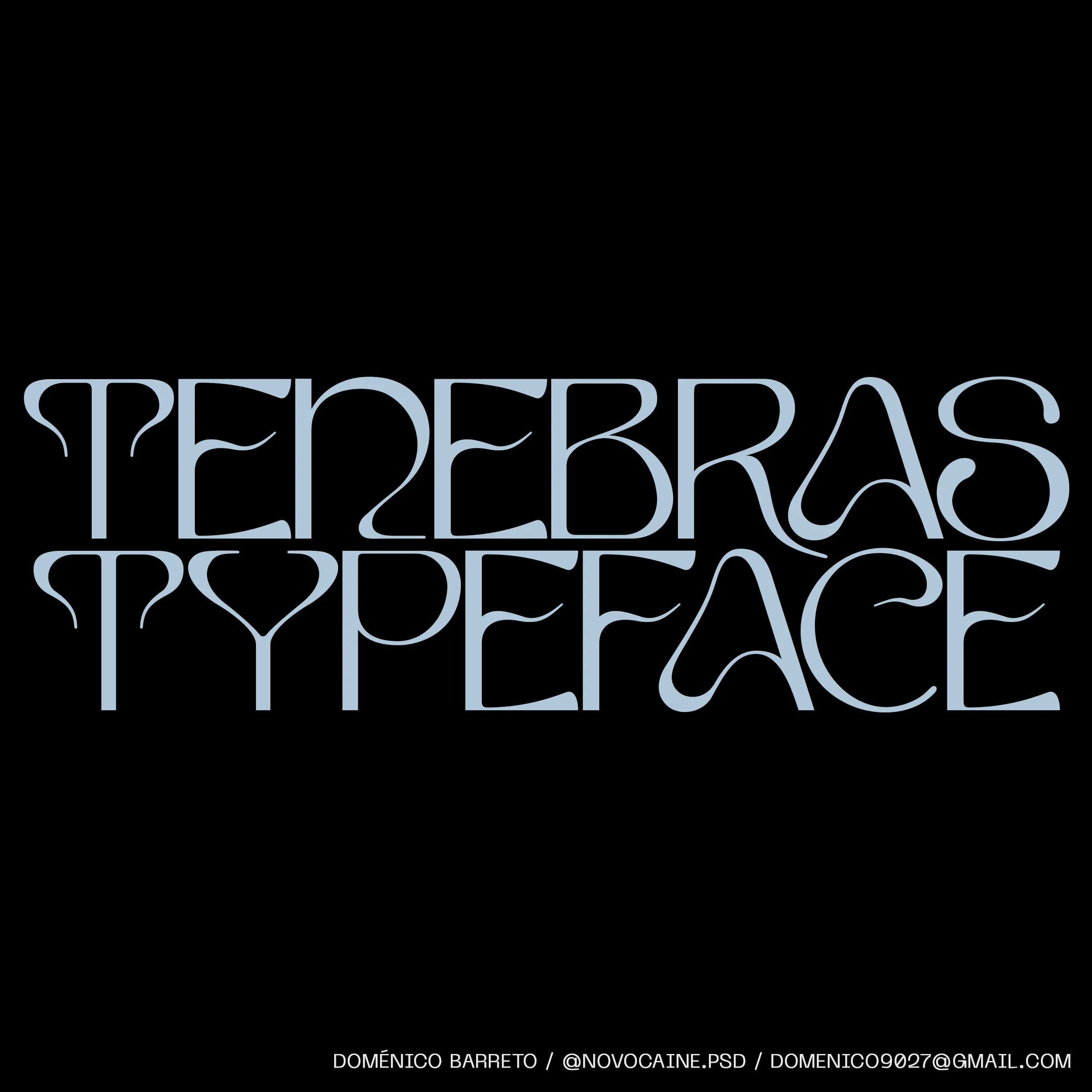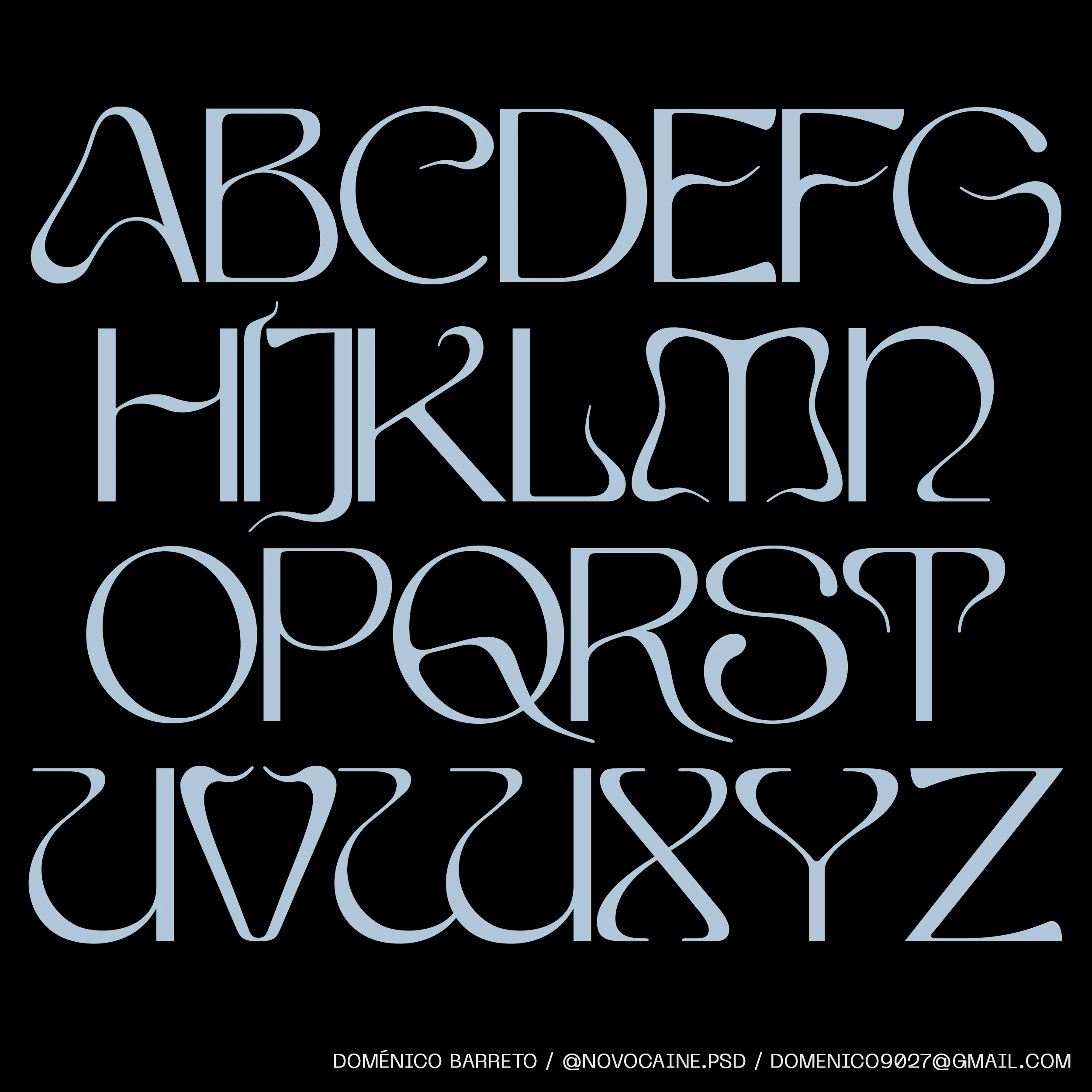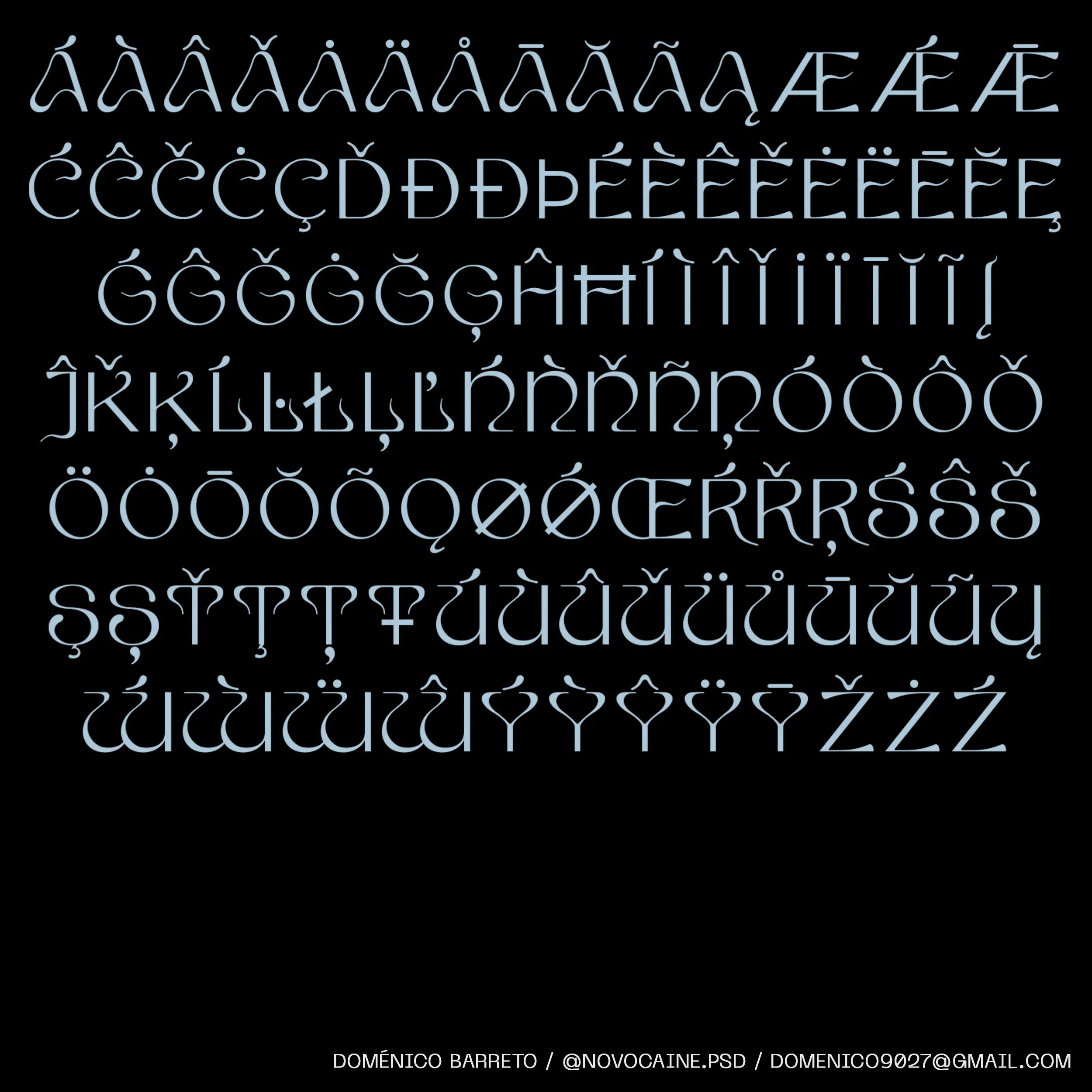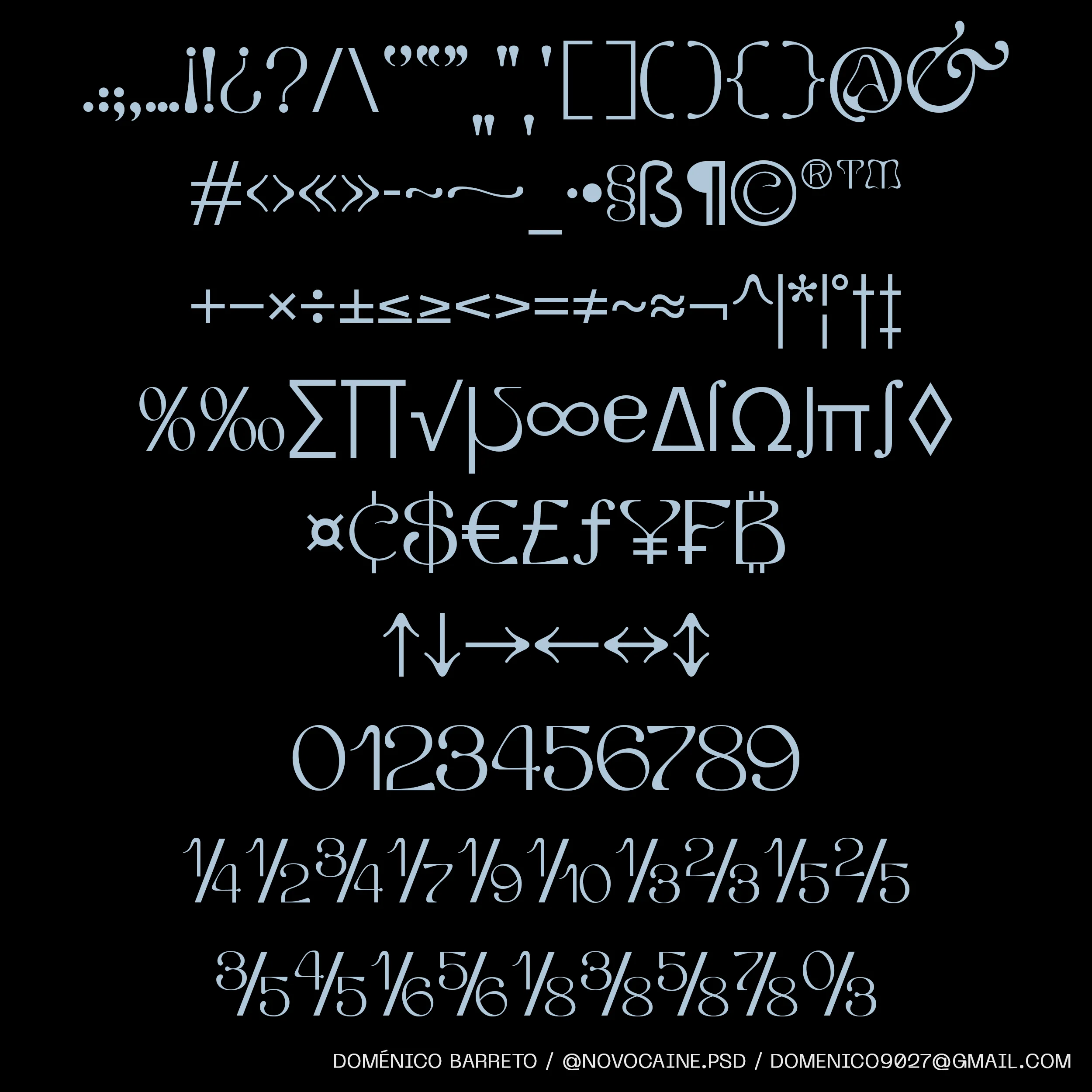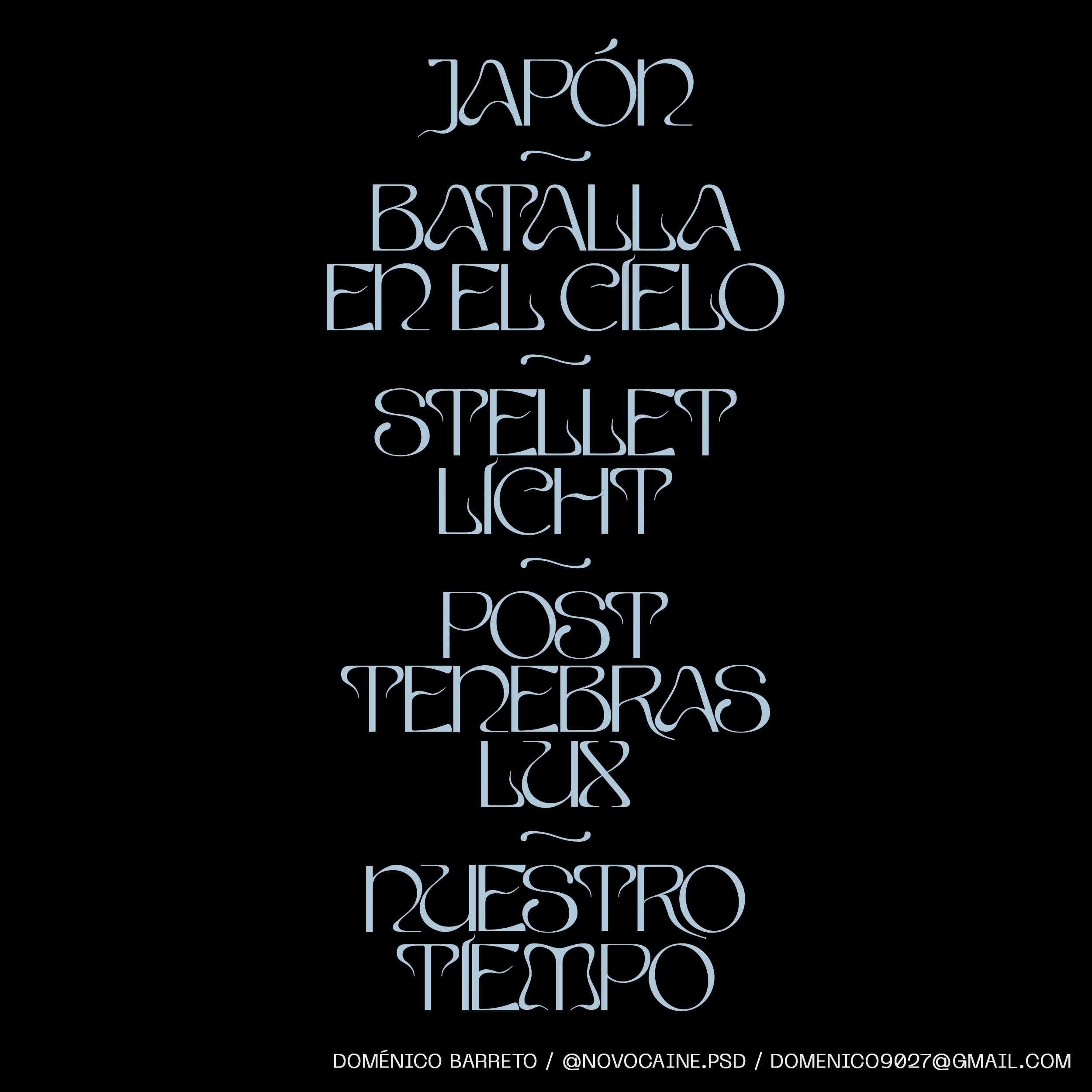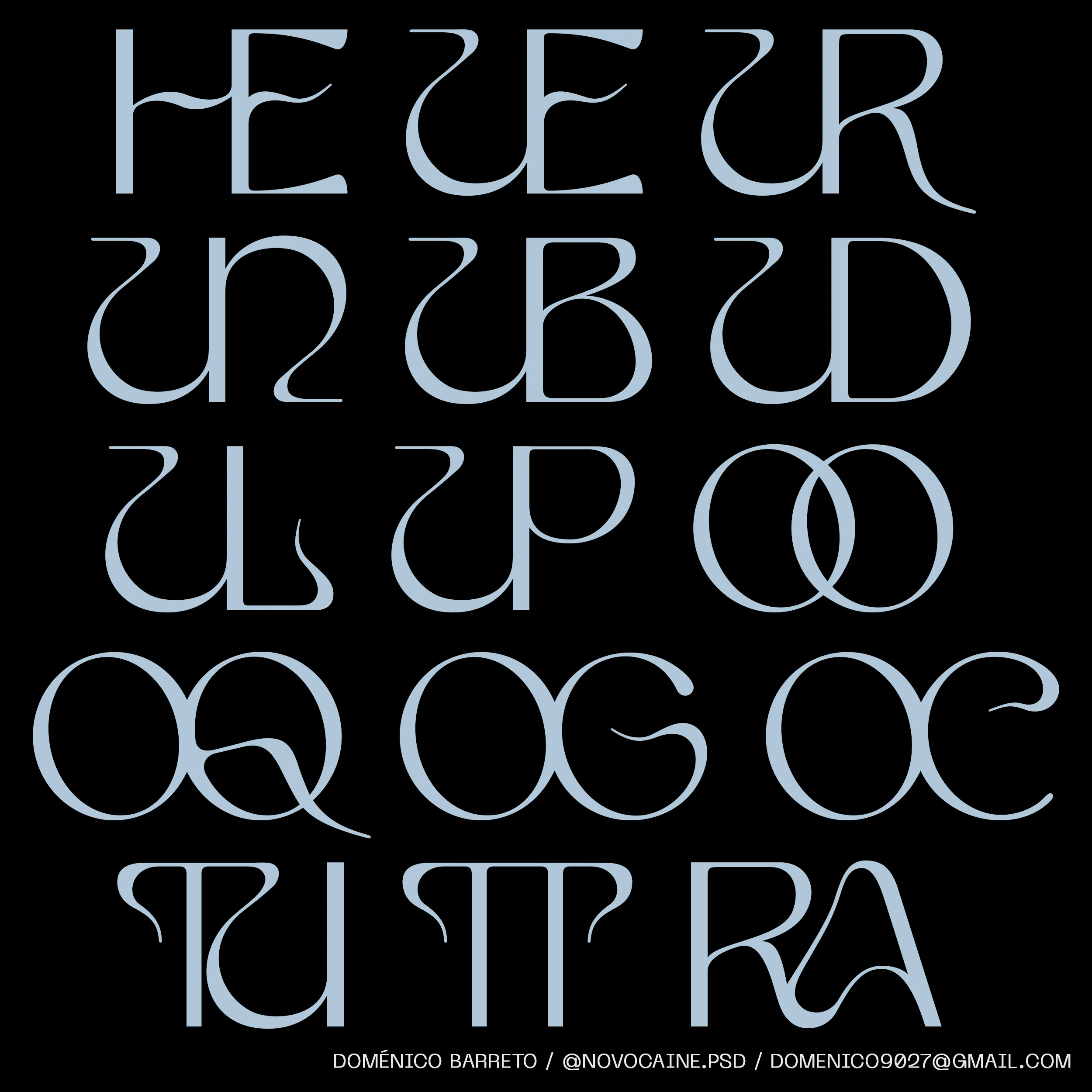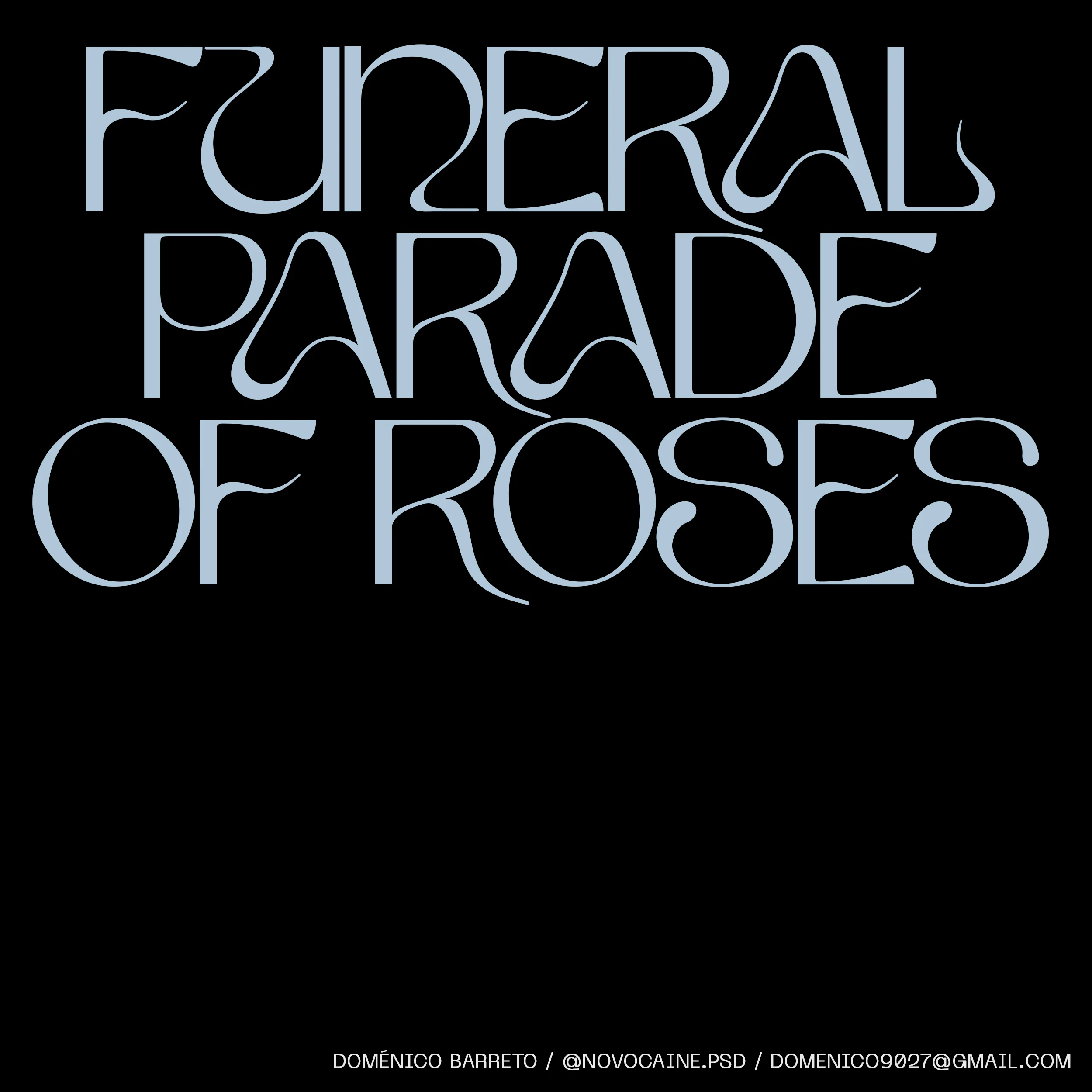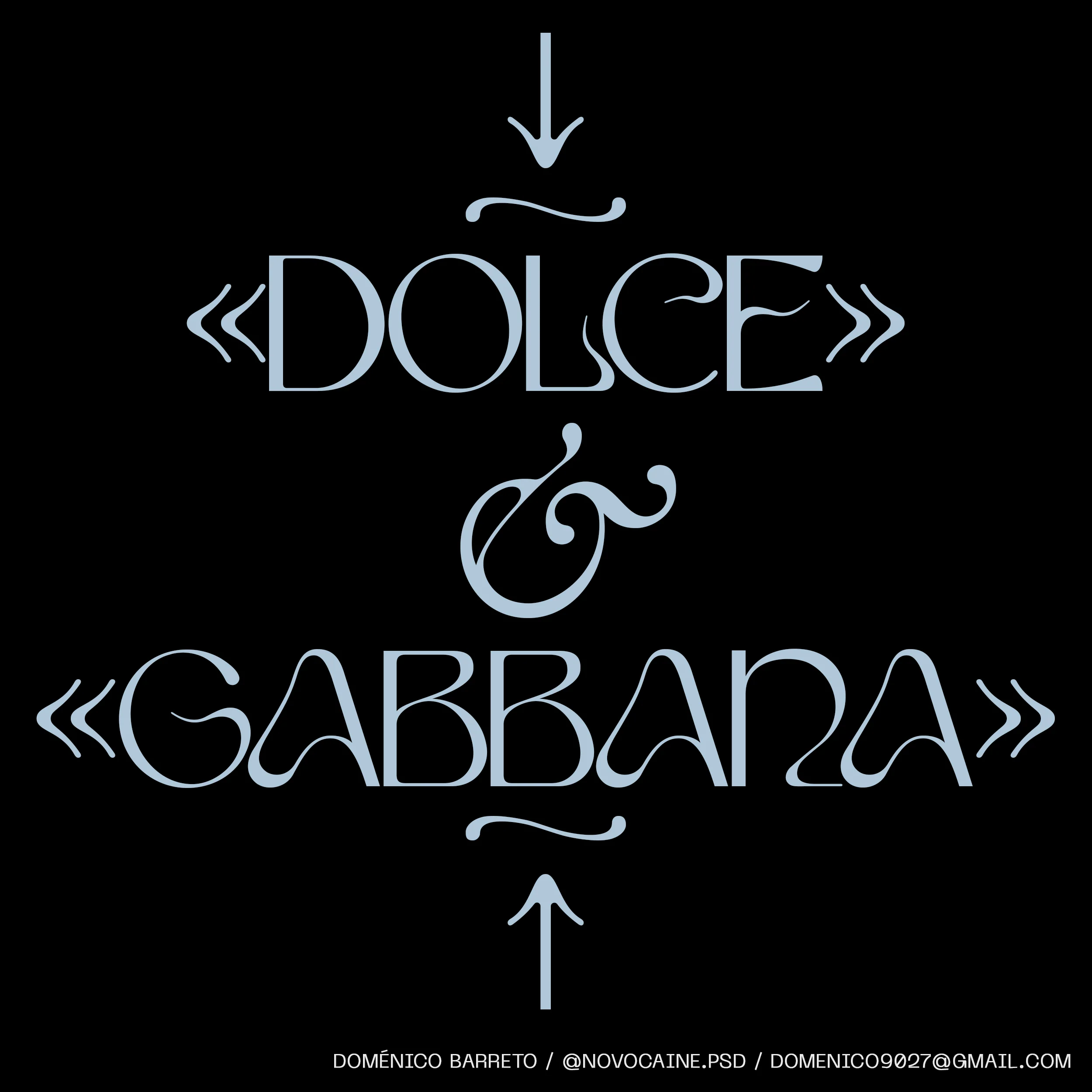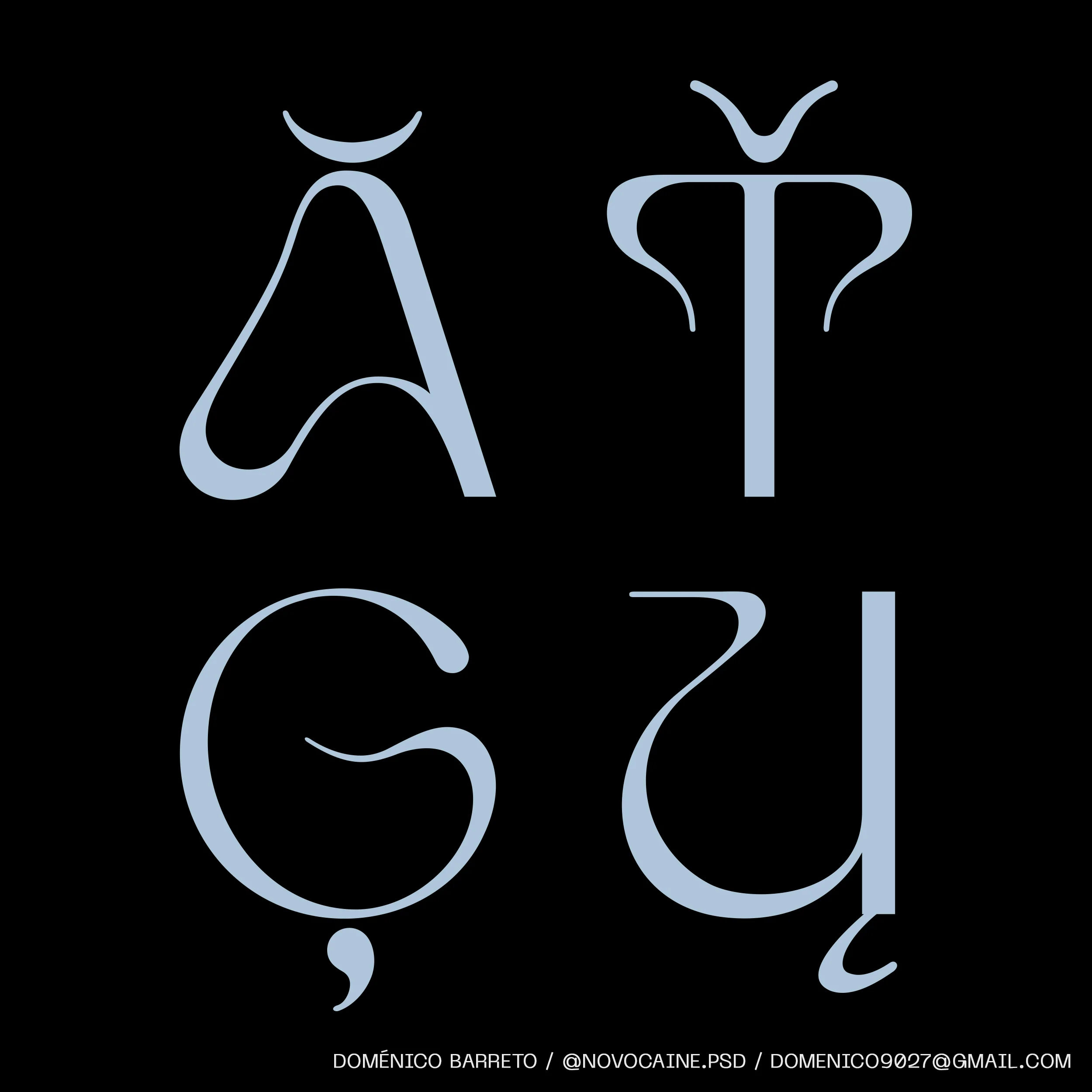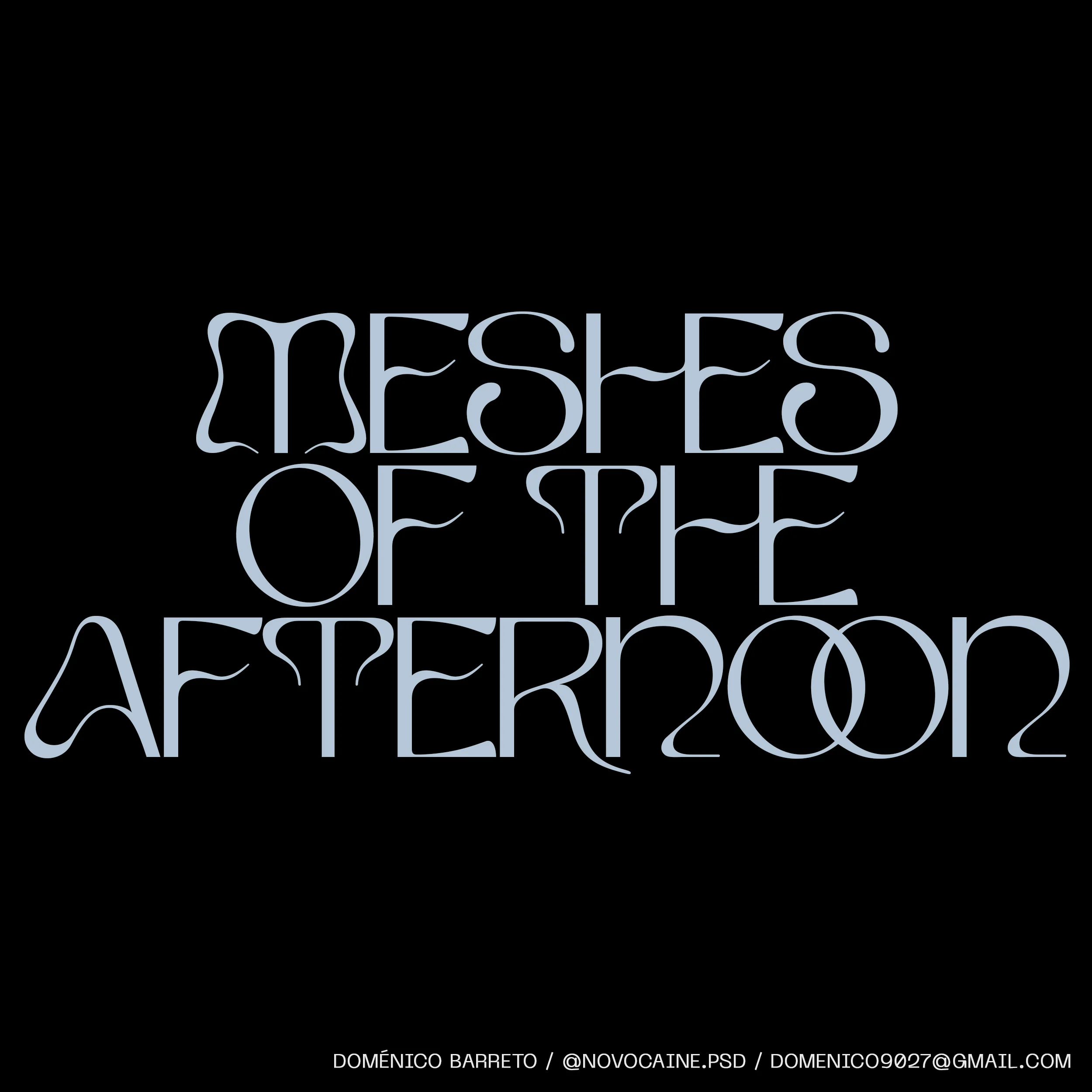
Tenebras
Tenebras is a striking uppercase display typeface that draws inspiration from Art Nouveau and Edda, the 1900 typeface designed by Heinrich Heinz Heune. Evoking a modern aesthetic with dynamic curves, Tenebras excels in creating elegant titles and eye-catching headlines. Its blend of historical charm and contemporary design elements makes it a versatile choice for projects that demand sophistication and visual impact.